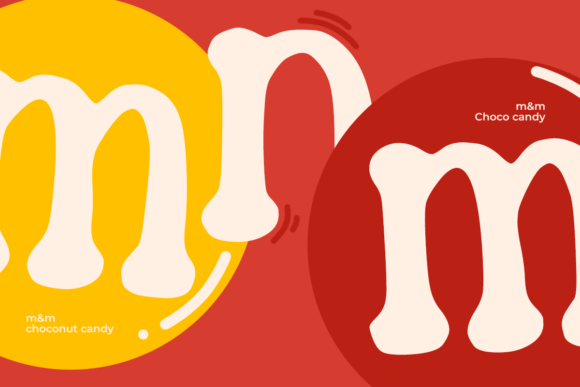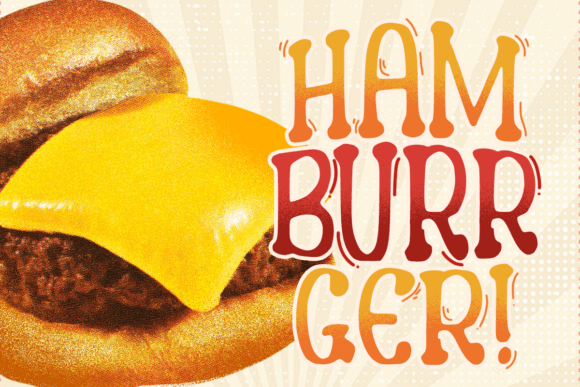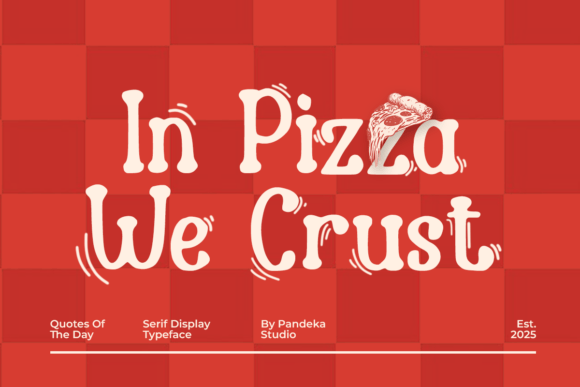
Gisgro Font: A Bold, Playful Serif for Retro Branding & Creative Designs
About the Gisgro Font
Unleash your creativity with Gisgro Font, a versatile font perfect for a wide range of applications. Gisgro is a playful serif display font with chunky, bold characters and a fun vintage spirit. Perfectly suited for food branding, cafe posters, kids’ designs, and retro-style promotions. Gisgro blends nostalgic curves with modern charm, making any project instantly eye-catching and cheerful. It includes uppercase, lowercase, numbers, and basic punctuation to bring life to your creative ideas.
Gisgro’s playful personality shines in headlines, short text blocks, and logos where its bold character makes a strong visual statement. It’s ideal for projects needing a retro-inspired, friendly feel, such as food packaging, children’s books, or vintage-themed branding. However, its chunky serifs and large x-height make it less suitable for body copy or UI elements where readability over long stretches is crucial.
Pairing Gisgro effectively requires considering its vintage charm and bold forms. A clean sans-serif like Open Sans or Lato would provide a strong contrast and enhance readability in supporting text. For a more playful approach, a rounded sans-serif such as Montserrat or a simple script font could amplify the fun, retro vibe.
Its overall personality is best described as cheerful and nostalgic, with a modern twist. This makes it a versatile choice for brands targeting a younger demographic or seeking a friendly, approachable image with a hint of vintage appeal.